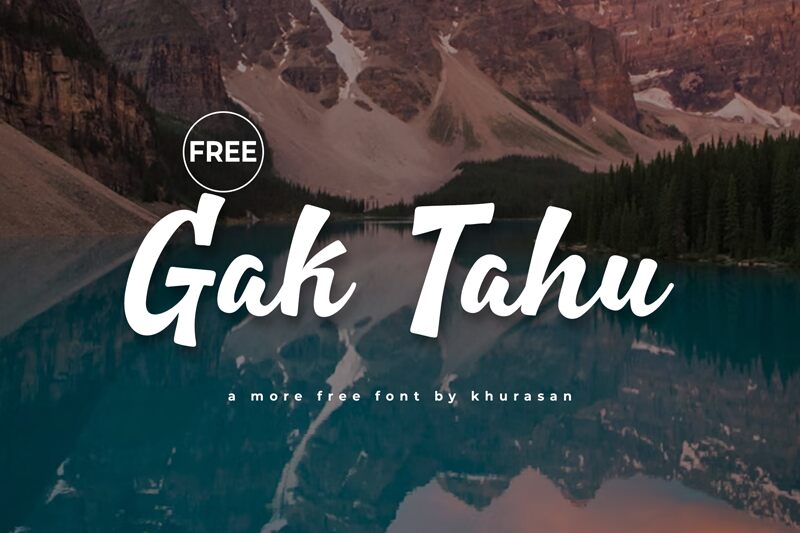
Gak Tahu font family is a free font by Khurasan with 2 font styles. The font features a modern and sleek overall style with its casual yet stylish letterforms. Letters are designed with continuity, energetic appendixes, and an overall emotional appeal. Wide, thick strokes with a high-contrast, well-structured design, decorated strokes, and incorporated friendly swashes provide an architectural visual structure and personality.
Use Gak Tahu in your print designs such as greeting cards, posters, brochures, and book covers. You can also revamp your visual identity and portray a casual, approachable personality with logo and branding uses. Use it on signage, packaging, labels, or in your digital ads, website, and social media profile or post designs.